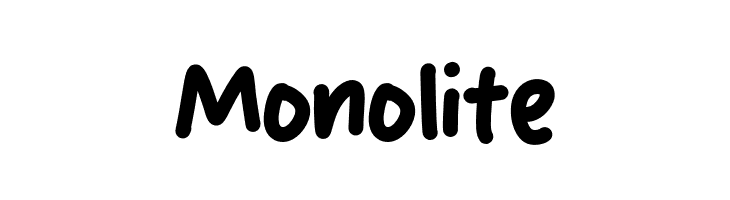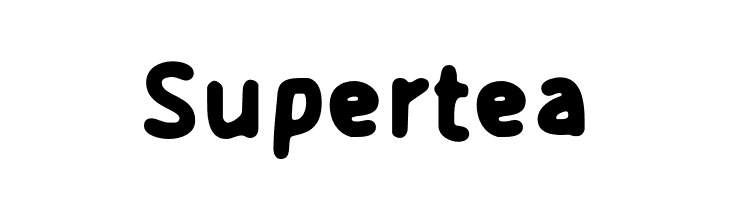
( Fonts by Khurasan )
A playful, bold font with wavy outlines and a whimsical style.
( Fonts by Modestype Studio )
A bold, angular font with a distressed and dynamic style.
( Fonts by GGBotNet )
A bold, angular font with a geometric and edgy style.
A bold, playful, hand-drawn font with a whimsical and friendly style.
( Fonts by VinType )
A playful, bold font with a whimsical, hand-drawn style.
( Fonts by Modestype Studio )
A bold, geometric font with an edgy and dynamic style.
( Fonts by Hanoded )
A playful, hand-drawn font with bold, irregular letterforms and unique scissor motifs.
( Fonts by Darrell Flood )
A bold, rounded, and playful italic font with clover-like elements.
( Fonts by Darrell Flood )
A playful, bubbly font with rounded, bold characters ideal for fun and whimsical projects.
( Fonts by Maulana Creative )
A bold, playful font with a hand-drawn, energetic style.
( Fonts by Jonathan S. Harris )
A decorative, hand-drawn font with tribal-inspired patterns and tall, narrow letters.
( Fonts by Brittney Murphy Design )
A decorative font with characters embedded in rooster silhouettes.
( Fonts by Billy Argel )
A bold, decorative font with heart cutouts and striped patterns.
( Fonts by Billy Argel )
A playful decorative font with heart motifs, perfect for romantic and whimsical designs.
( Fonts by Billy Argel )
A bold, dynamic font with a halftone effect and slanted characters, perfect for modern designs.
( Fonts by Billy Argel )
Bold, halftone-patterned font with a retro, comic book style.
( Fonts by Billy Argel )
A bold, italic font with a halftone pattern, exuding speed and energy.
( Fonts by Billy Argel )
A bold, retro font with a halftone pattern and three-dimensional effect.
( Fonts by Aisyah )
A playful font with cat faces integrated into each character, offering a whimsical and friendly style.
A playful, gooey-textured font with a whimsical, cartoonish style.
( Fonts by Integritype Studio )
A playful, bubble-like font with rounded shapes and bold strokes.
( Fonts by Brittney Murphy Design )
A decorative font with characters enclosed in barn-like structures, ideal for rustic themes.